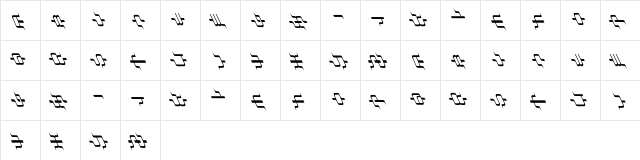
FCL HeavyMossR1Ver10
Design Context for FCL Typeface
FCL is a composed and adaptable typeface that performs quietly and consistently across a wide range of design contexts.